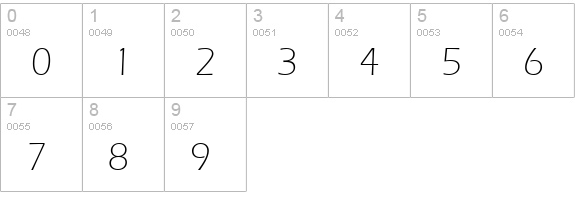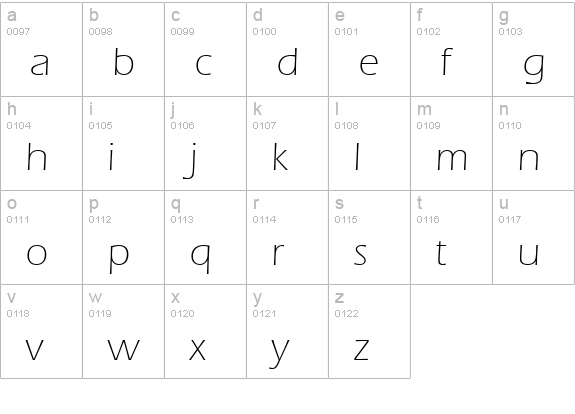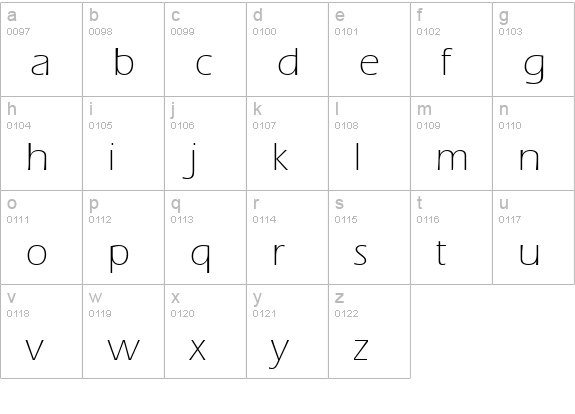
ErieLight Font Details
ErieLight is a beautifully crafted font that exudes sophistication and elegance. Its sleek and modern design makes it perfect for a wide range of projects, from branding to editorial design. With its clean lines and stylish appearance, ErieLight adds a touch of class to any layout. The best part? ErieLight is completely free to download at FontsMarket.com. This means that you can access this stunning font without having to worry about breaking the bank. Whether you're a seasoned designer looking to add a new font to your collection or a beginner just starting out, ErieLight is a fantastic choice that won't cost you a thing. Don't miss out on the opportunity to elevate your designs with ErieLight. Download this free font today and see the difference it can make in your projects.